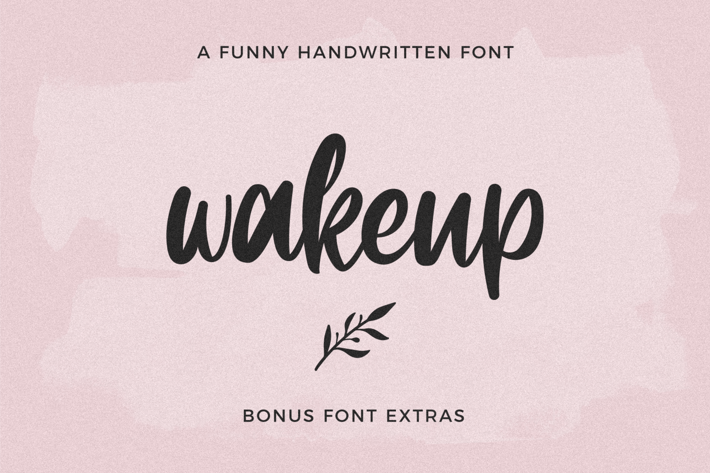
Wakeup Extras Symbol Font
Wakeup is a unique thick script font that has funny and feminine properties. This font is perfect for businesses that are close to women such as weddings, invitations, book titles, label designs, and more.:)